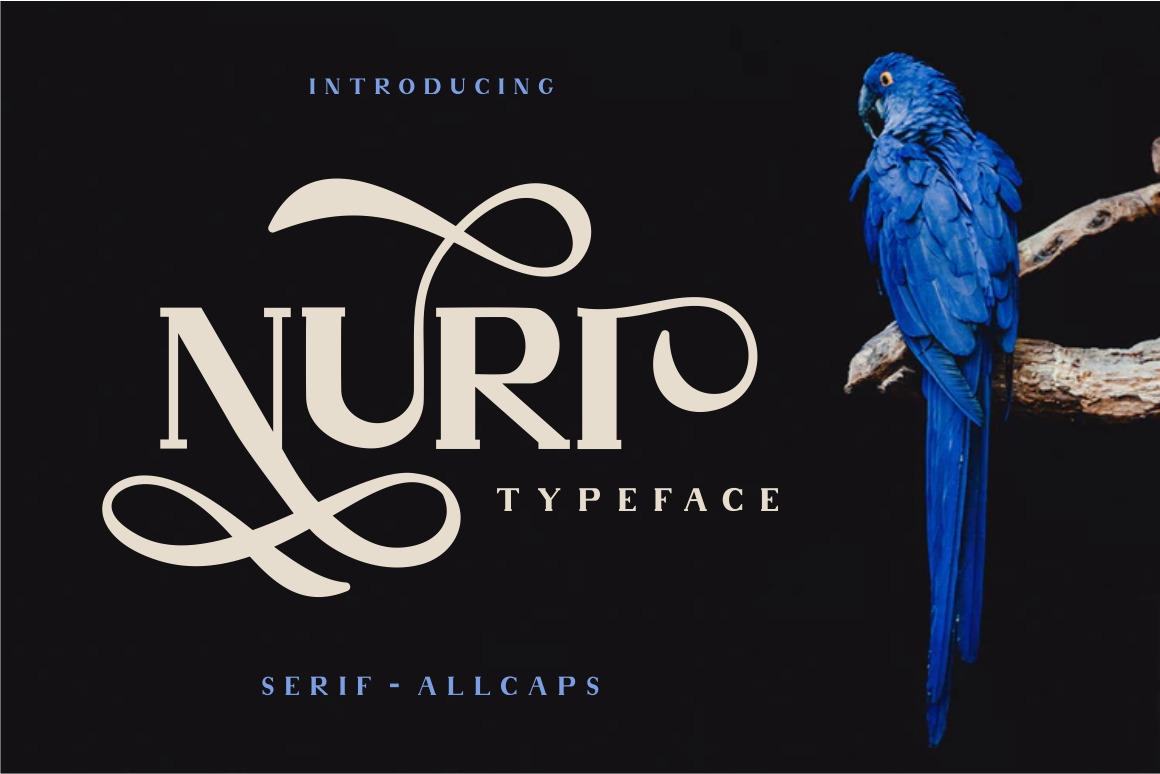
Nuri Font
Nuri
Nuri is an classic and elegant display typeface. Allcaps characters, with lots of alternatives, so you can combine according to your creativity. Nuri available in Regular and Bold Version. Suitable for logos, Tshirt,handwritten quotes, product packaging, tittle header, poster, merchandise, social media, labels, branding & greeting cards.